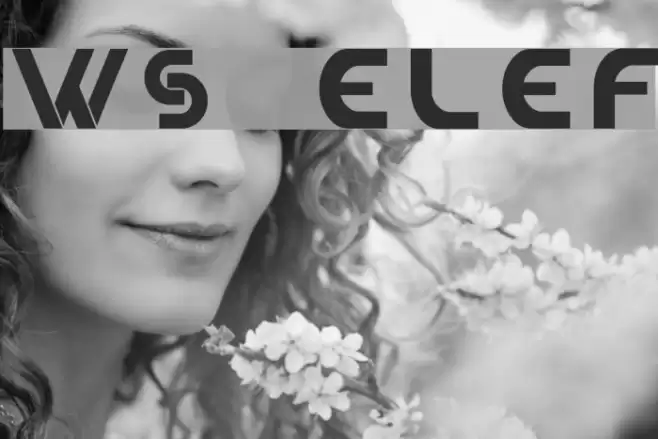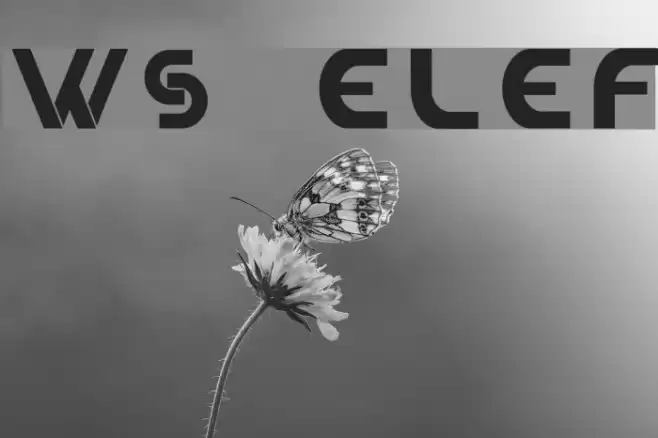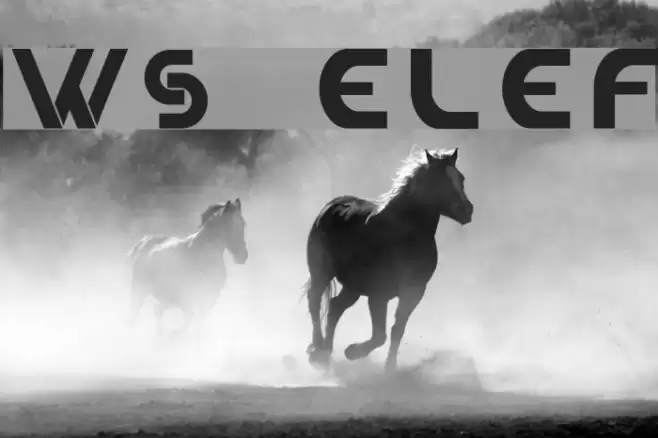
WS Elef Font
WS Elef Description
This font features a bold and geometric design, characterized by its strong, angular lines and modern aesthetic. The uppercase letters are crafted with a unique blend of sharp edges and smooth curves, creating a dynamic and eye-catching appearance. The lowercase letters maintain the same geometric style, ensuring consistency throughout the typeface. The numerals are equally bold, with a clear and distinct design that complements the overall style. Special characters are included, each designed to match the font's modern and bold characteristics. This font is ideal for projects that require a strong visual impact, such as branding, advertising, and headlines.
A bold, geometric font with sharp edges and a modern style from Uncategorized fonts.